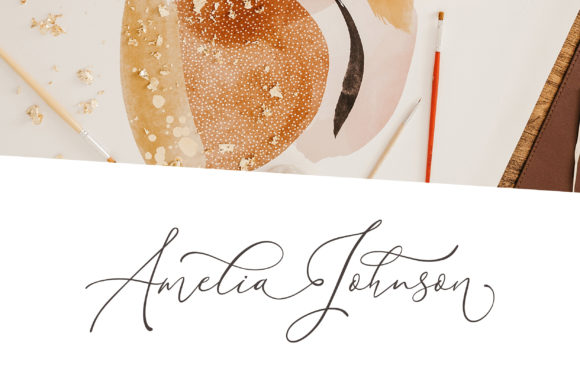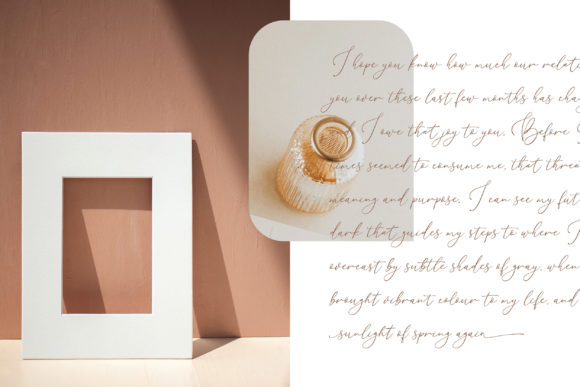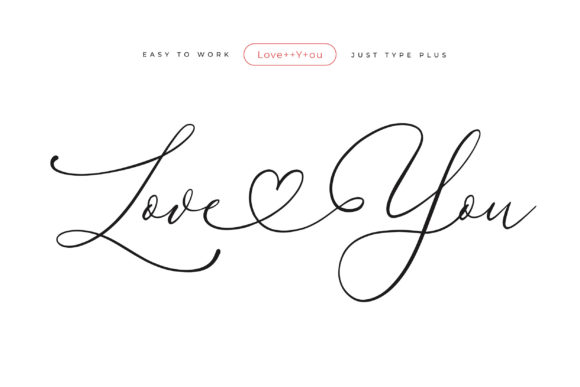
Little Love Font
Little Love is a refined and graceful script font. This font is PUA encoded which means you can access all of the glyphs and swashes with ease! It has a clean, thin and smooth vibe and it will be a hit for any design that you want to add it to.